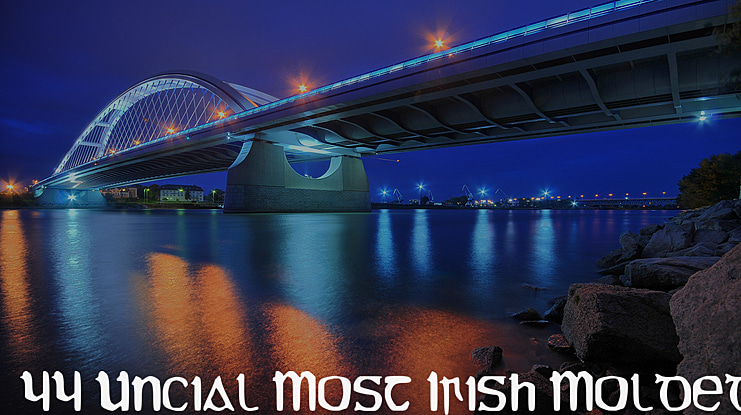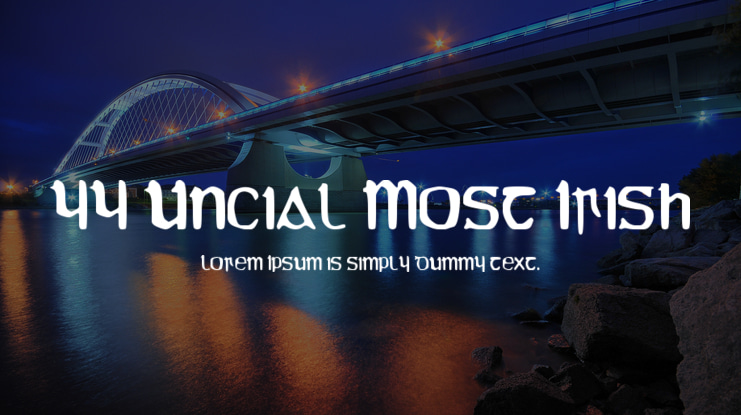
YY Uncial Most Irish Font Family
Yellowyellow©. 2005. All Rights Reserved. I designed Uncial Most Irish font to write the Irish Uncial alphabet. However, fill free to use it to beautify any document as it is a lovely, old worldly script. From the time of the middle ages it was used to write Irish Gaelic. Until recently it was used widely, and is still used on street signs in Ireland. Today, most Irish is written using the modern Latin alphabet.